The Hunt Font
The Hunt font is closely associated with the intense Danish drama The Hunt (Jagten), known for its raw emotional storytelling and minimalist design approach. The typography used in the film’s title features clean, geometric lines and a subdued weight, reflecting the psychological realism and restrained tension of the story. It’s a type treatment that prioritizes honesty and atmosphere over decoration—just like the film itself.
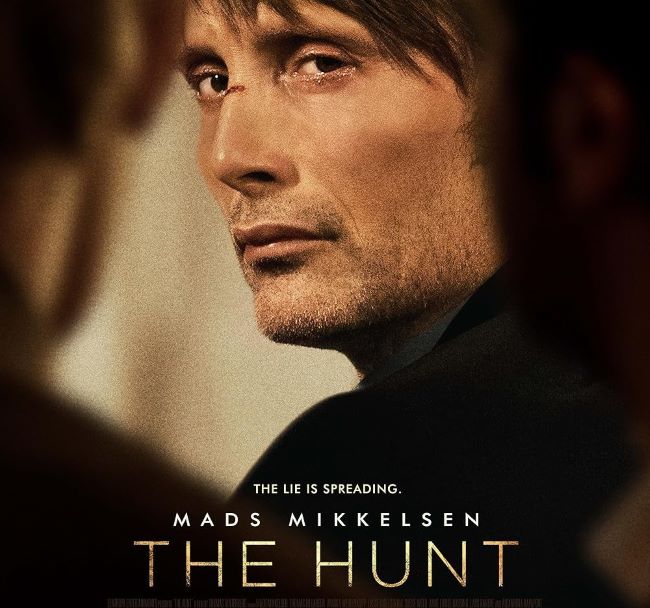
There isn’t an official Hunt font available, but you can achieve a similar aesthetic with sans-serif typefaces such as Helvetica, Univers, or Futura. Their balanced proportions and unembellished style deliver the same understated power, making them suitable for projects that call for intensity and clarity without distraction.
About The Hunt
The Hunt is a Danish psychological drama film directed by Thomas Vinterberg and released in 2012. Set in a small town, it tells the story of a man falsely accused of a serious crime, exploring themes of fear, trust, and community judgment. The film earned widespread acclaim for its realism, emotional depth, and Mads Mikkelsen’s powerful lead performance.